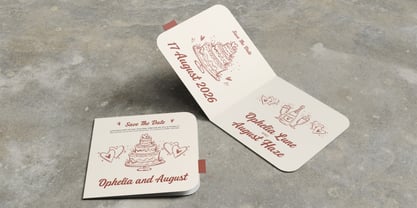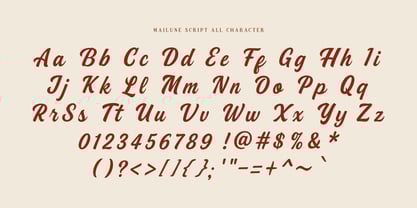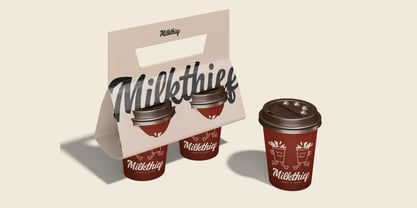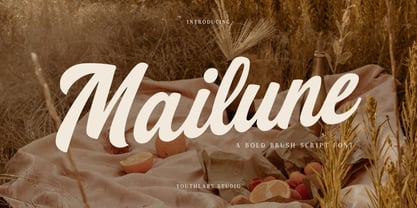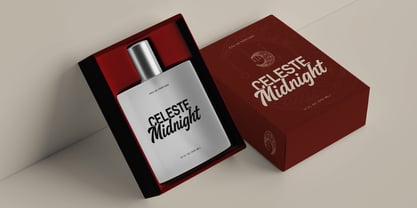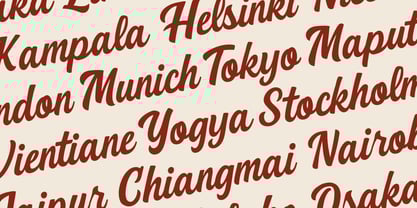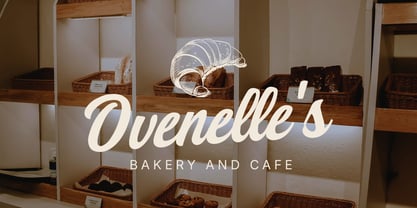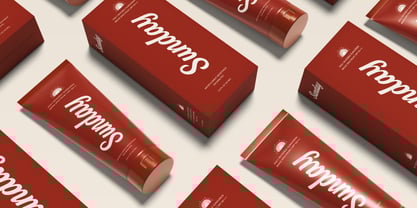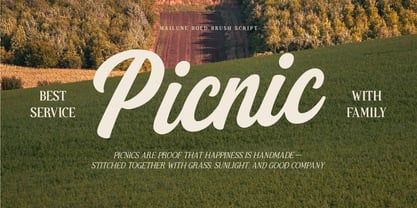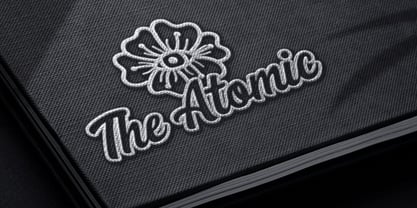
Mailune
The Mailune Font Family was designed by Fathi Al Ghazi and published by Youthlabs. Mailune contains 1 styles.
Mailune is a bold brush script font inspired by golden hour picnics and slow summer afternoons. With its sweeping strokes and rich texture, Mailune captures the essence of handwritten elegance and rustic charm. Perfect for romantic branding, packaging, invitations, or lifestyle content, this font brings warmth and character to any design. Whether you're designing for a modern boho brand or crafting cozy seasonal graphics, Mailune adds a touch of bold, heartfelt beauty.